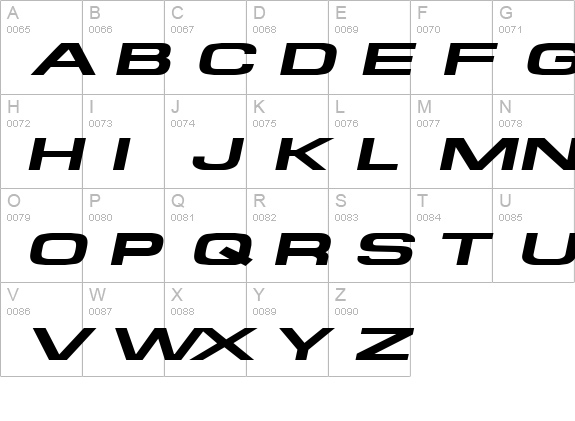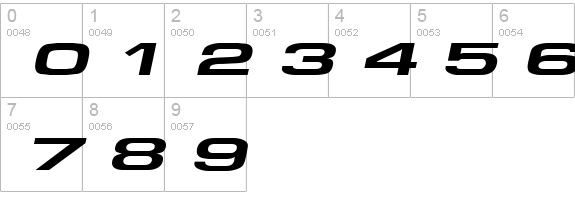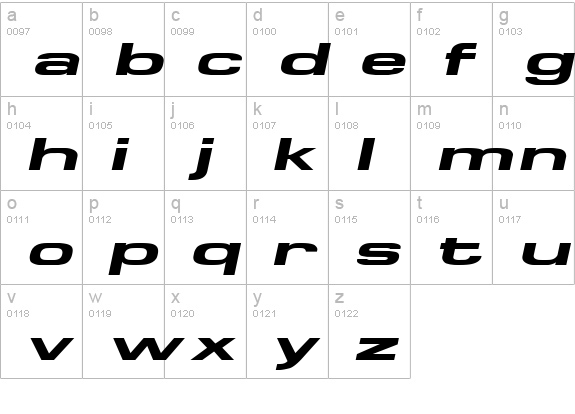
Supertouch Oblique is a distinctive, italic variant in the Supertouch typeface family \xE2\x80\x94 well suited to design and typography projects.
Supertouch Oblique font is a sleek and modern typeface that exudes elegance and sophistication. Its unique design features slanted letterforms that add a dynamic and contemporary touch to any project. With its clean lines and stylish appearance, Supertouch Oblique is perfect for branding, editorial design, and display purposes. This versatile font is freely available to download at FontsMarket.com, making it accessible to designers and creatives looking to elevate their work with a touch of class. Whether you're working on a logo, poster, or website, Supertouch Oblique is sure to make a bold statement and leave a lasting impression on your audience. Elevate your designs with this stunning font today!